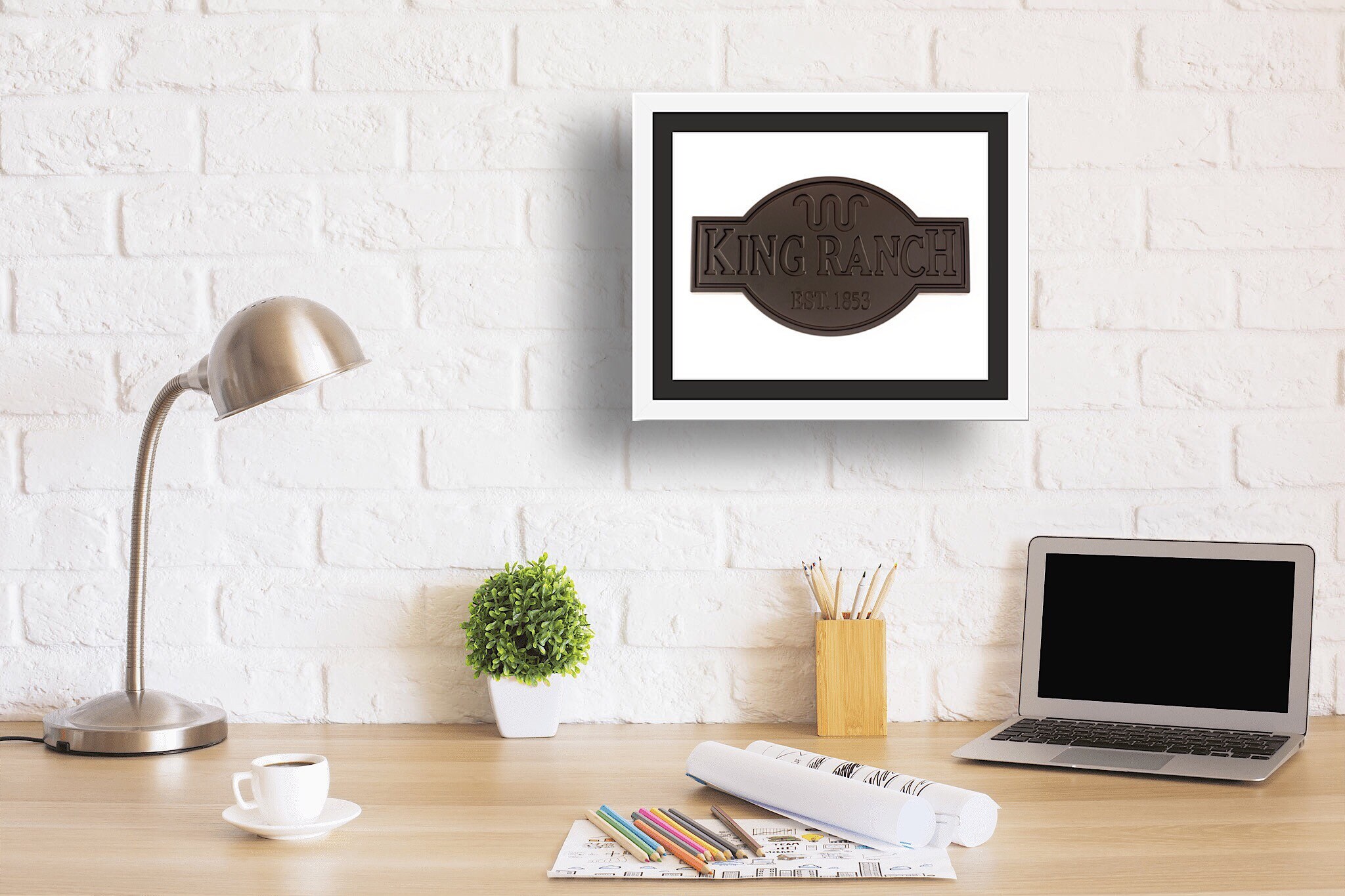
What Font Is The King Ranch Running W Font . Upload an image, crop and. Browse by style, popularity, author or alphabetical listing.
Web the running w is the iconic logo of king ranch, a historic cattle ranch in texas. Upload an image, crop and. Web find any font from any image with over 990k+ fonts, including both commercial and free options.
Learn about the origin, meaning, and evolution of. Web upload an image of text and find what the font is with fontspring matcherator, a free font identifier tool. Learn about the origin, meaning, and evolution of. Web find any font from any image with over 990k+ fonts, including both commercial and free options.
What Font Is The King Ranch Running W Font - Web upload an image with type and the font squirrel matcherator will identify the fonts that match. Web find any font from any image with over 990k+ fonts, including both commercial and free options. You can also enter the. Web upload an image of text and find what the font is with fontspring matcherator, a free font identifier tool. Web.
What Font Is The King Ranch Running W Font - Web upload an image of text and find what the font is with fontspring matcherator, a free font identifier tool. Web the font used for king ranch logo is very similar to cheltenham bold, which is a transitional serif font designed by tony stan and published by itc. Learn about the origin, meaning, and evolution of. Web find any font.
What Font Is The King Ranch Running W Font - Web find any font from any image with over 990k+ fonts, including both commercial and free options. You can also enter the. Upload an image, crop and. Learn about the origin, meaning, and evolution of. Web upload an image of text and find what the font is with fontspring matcherator, a free font identifier tool.
What Font Is The King Ranch Running W Font - Web find any font from any image with over 990k+ fonts, including both commercial and free options. Browse by style, popularity, author or alphabetical listing. Upload an image, crop and. Learn about the origin, meaning, and evolution of. Web the running w is the iconic logo of king ranch, a historic cattle ranch in texas.
What Font Is The King Ranch Running W Font - Browse by style, popularity, author or alphabetical listing. Web upload an image with type and the font squirrel matcherator will identify the fonts that match. Web the running w is the iconic logo of king ranch, a historic cattle ranch in texas. Web upload an image or paste an image url to identify fonts by image using deep learning and.
What Font Is The King Ranch Running W Font - You can also enter the. Web the running w is the iconic logo of king ranch, a historic cattle ranch in texas. Web upload an image or paste an image url to identify fonts by image using deep learning and over 133,000 font styles. Web upload an image with type and the font squirrel matcherator will identify the fonts that.
What Font Is The King Ranch Running W Font - Web the running w is the iconic logo of king ranch, a historic cattle ranch in texas. Web the font used for king ranch logo is very similar to cheltenham bold, which is a transitional serif font designed by tony stan and published by itc. Browse by style, popularity, author or alphabetical listing. You can also enter the. Web find.
What Font Is The King Ranch Running W Font - Learn about the origin, meaning, and evolution of. Browse by style, popularity, author or alphabetical listing. Web find any font from any image with over 990k+ fonts, including both commercial and free options. Upload an image, crop and. Web upload an image of text and find what the font is with fontspring matcherator, a free font identifier tool.
What Font Is The King Ranch Running W Font - Browse by style, popularity, author or alphabetical listing. Web the font used for king ranch logo is very similar to cheltenham bold, which is a transitional serif font designed by tony stan and published by itc. Web upload an image with type and the font squirrel matcherator will identify the fonts that match. Upload an image, crop and. You can.
What Font Is The King Ranch Running W Font - Web the font used for king ranch logo is very similar to cheltenham bold, which is a transitional serif font designed by tony stan and published by itc. Learn about the origin, meaning, and evolution of. Web upload an image with type and the font squirrel matcherator will identify the fonts that match. You can also enter the. Web upload.
What Font Is The King Ranch Running W Font - Learn about the origin, meaning, and evolution of. Web the running w is the iconic logo of king ranch, a historic cattle ranch in texas. Upload an image, crop and. Web find any font from any image with over 990k+ fonts, including both commercial and free options. Web the font used for king ranch logo is very similar to cheltenham.
What Font Is The King Ranch Running W Font - Learn about the origin, meaning, and evolution of. Upload an image, crop and. You can also enter the. Web upload an image or paste an image url to identify fonts by image using deep learning and over 133,000 font styles. Web the running w is the iconic logo of king ranch, a historic cattle ranch in texas.